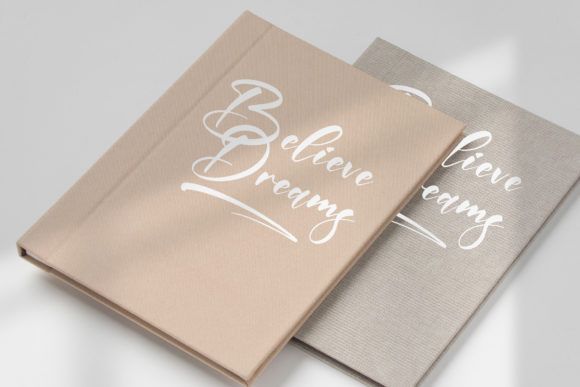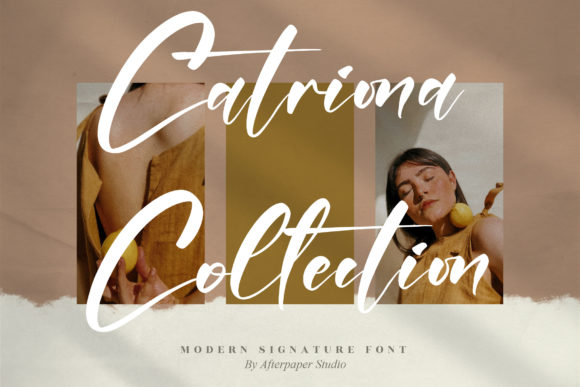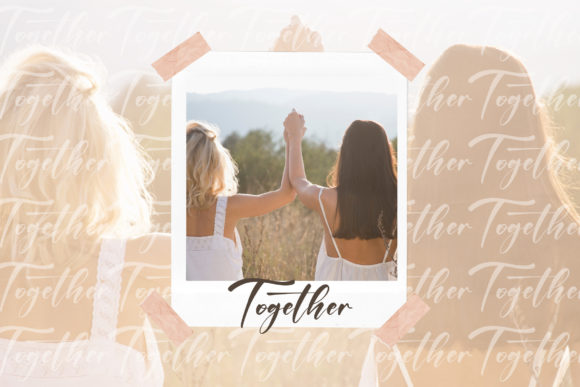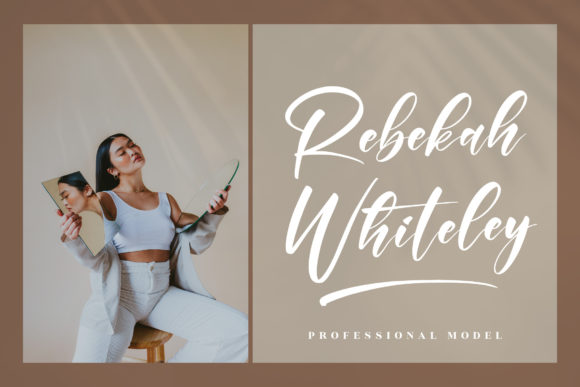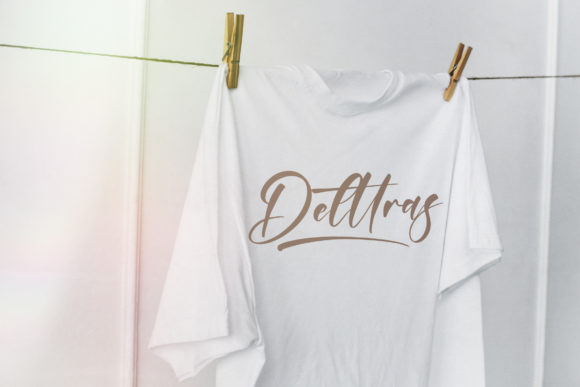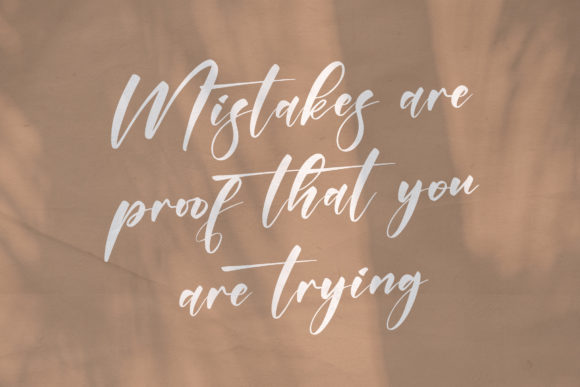
Delttras Font: Elevate Your Designs with Elegant Script Style
In the world of design, typography plays a crucial role in conveying messages, evoking emotions, and creating lasting impressions. For designers and crafters seeking a font that embodies elegance and sophistication, Delttras Font stands out as a beautiful script font suitable for a wide array of projects. From logos and branding projects to homeware designs, product packaging, and more, Delttras offers a versatile and stylish solution.
What is Delttras Font?
Delttras Font is a meticulously crafted script font designed to bring a touch of class and refinement to any project. Its fluid strokes, elegant ligatures, and beautiful letterforms make it an ideal choice for designers looking to infuse their work with a sense of luxury and creativity. Whether you’re working on a logo, a quote, a poster, or a product design, Delttras provides the perfect blend of style and readability.
Key Features of Delttras Font
- Elegant Script Style: Delttras boasts a sophisticated script style that adds a touch of elegance to any design.
- Versatile Usage: Suitable for a wide range of projects including logos, branding projects, homeware designs, product packaging, mugs, quotes, posters, shopping bags, t-shirts, book covers, name cards, invitation cards, greeting cards, labels, photography, watermarks, and special events.
- Easy to Read: Despite its elegant and cursive nature, Delttras maintains a high level of readability, making it perfect for both digital and print designs.
- Customizable: Designers can easily customize the font to fit their project’s needs, including adjusting sizes, colors, and styles.
Delttras Font offers numerous benefits for designers and crafters looking to elevate their work. Its unique and stylish appearance helps projects stand out in a crowded market, making it an excellent choice for those aiming to create a memorable brand identity or design.
- Pair with Complementary Fonts: For maximum impact, pair Delttras with sans-serif fonts to create a balanced and visually appealing design.
- Experiment with Colors: Delttras looks stunning in a variety of colors. Experiment with different hues to find the perfect match for your brand or design theme.
- Adjust for Readability: Depending on the project’s requirements, adjust the font size and style to ensure optimal readability without compromising on aesthetics.
Delttras Font is a powerful tool for designers and crafters seeking to infuse their projects with elegance, sophistication, and a touch of personal style. Its versatility, readability, and stunning script style make it an excellent choice for a wide range of applications. By incorporating Delttras into your design arsenal, you’ll be well-equipped to create visually stunning and memorable projects that leave a lasting impression.
Whether you’re a professional designer or a DIY crafter, Delttras Font invites you to explore new creative horizons and transform your ideas into beautiful realities.